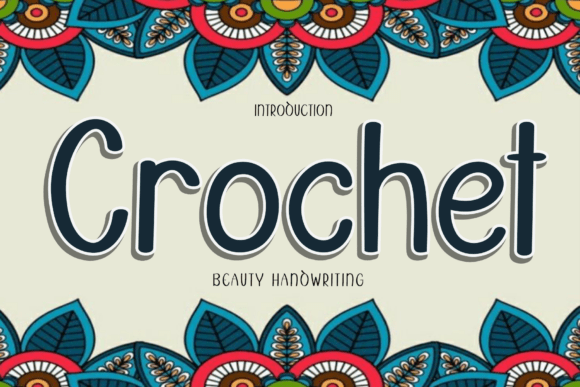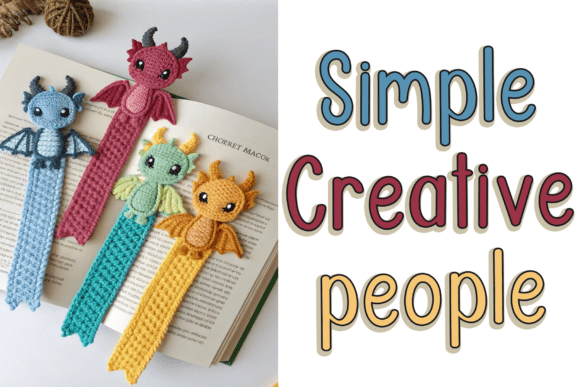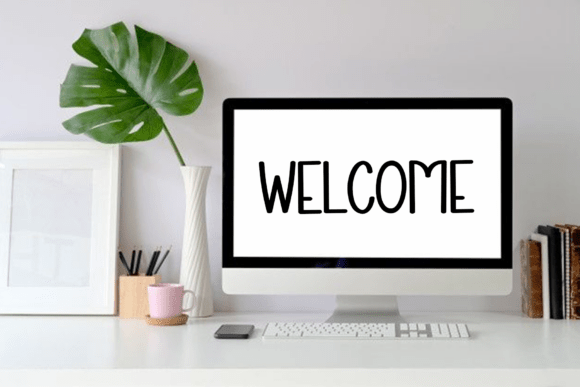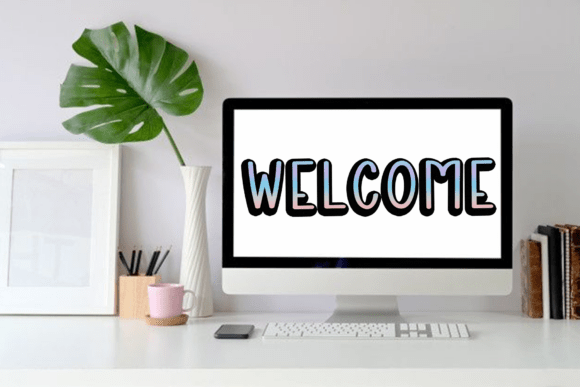
Crochet Font: Cute Handwritten Font for DIY Craft & Cricut Projects
About the Crochet Font
Unleash your creativity with Crochet Font, a versatile font perfect for a wide range of applications. Crochet is a sweet and friendly handwritten font. Fresh and casual, this font is ideal for writing wedding invitations, cards, or any other design that might need a lovely touch.
Crochet’s friendly, casual style makes it perfect for projects requiring a warm and approachable feel. It excels in short text applications like headlines, logos for small businesses (e.g., bakeries, boutiques), social media graphics, and wedding stationery. Avoid using Crochet for large blocks of body text or UI elements; its handwritten nature can hinder readability in extended use.
Pairing Crochet with a clean sans-serif font like Lato or Open Sans provides a strong contrast, balancing its informal charm with modern readability. For a more elegant touch, consider pairing it with a delicate serif like Playfair Display. A simple geometric sans-serif could also work well, adding a touch of sophistication.
Crochet’s overall personality is undeniably friendly and approachable. Its lighthearted energy is well-suited to brands that wish to project warmth and approachability.
Crochet Font Usage Examples
Crochet Font Example